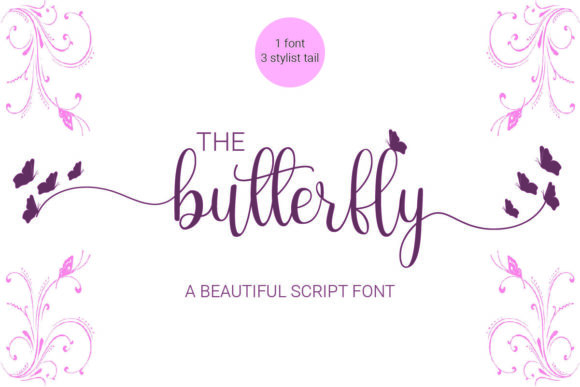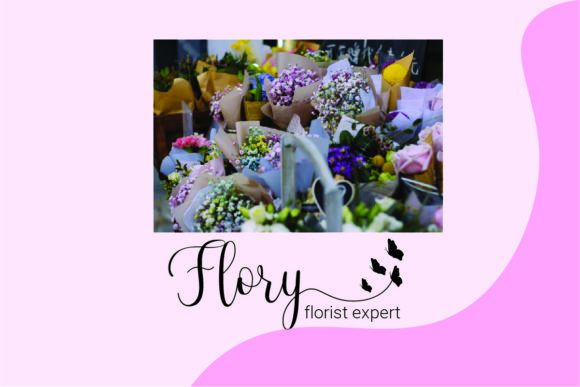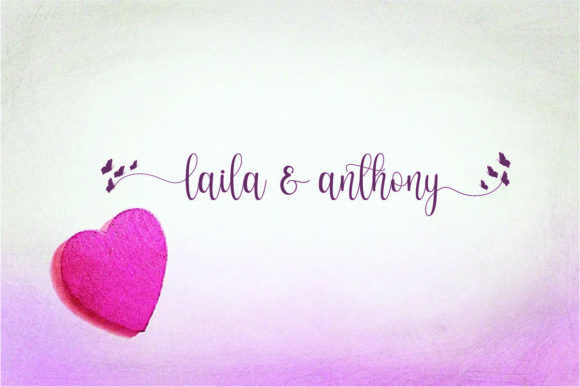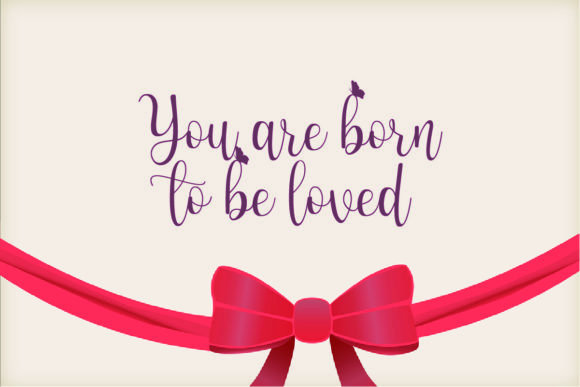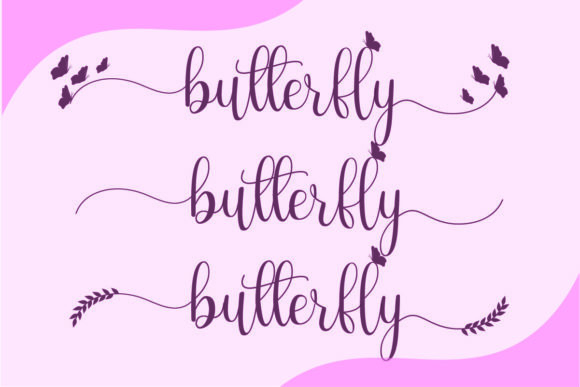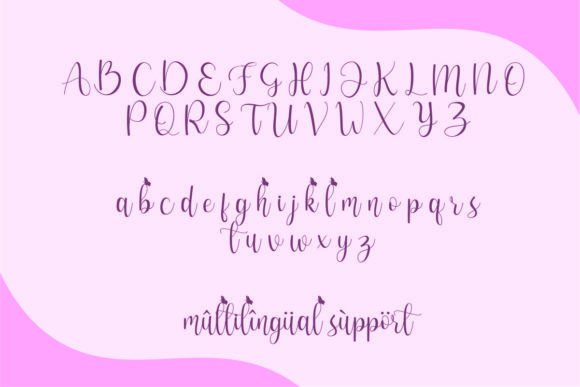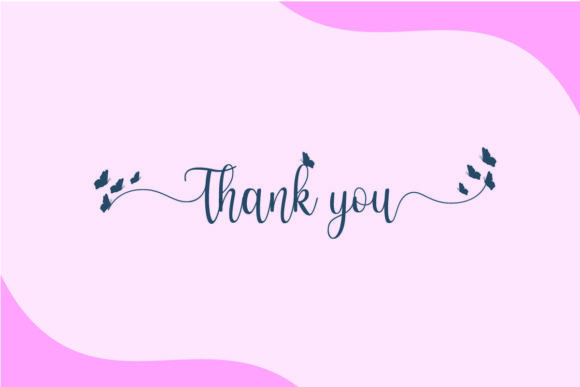
The Butterfly Font
About The Butterfly Font
The Butterfly is an elegant and sweet script with a romantic spark. Use it to add that special enchanting touch to any design idea you can think of!